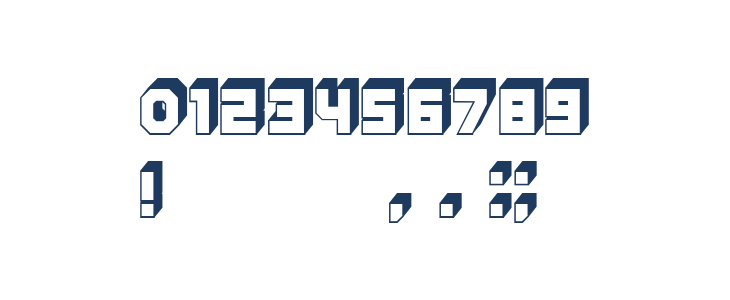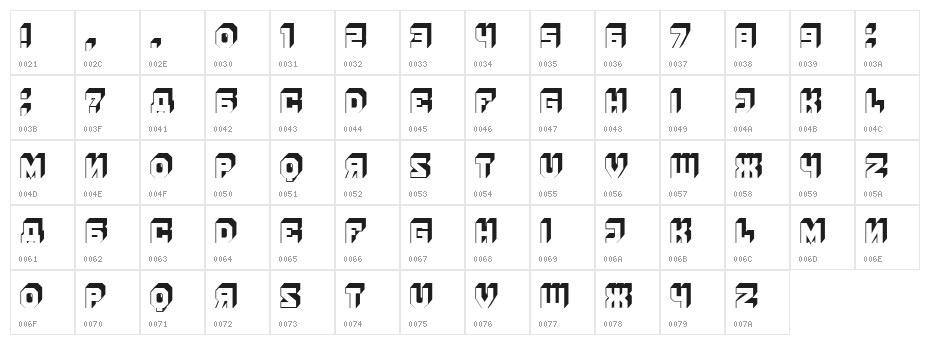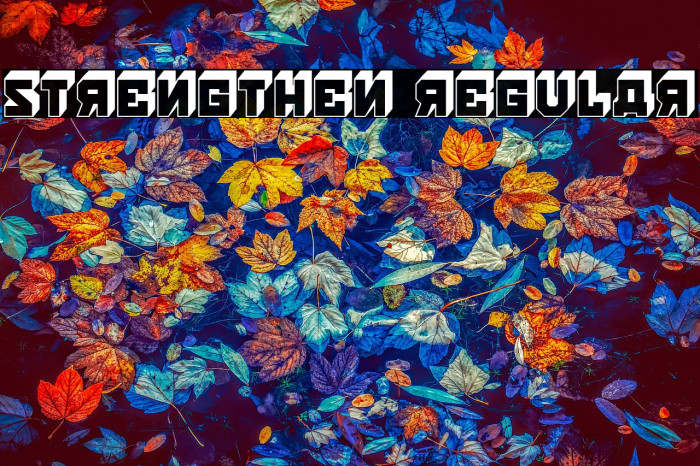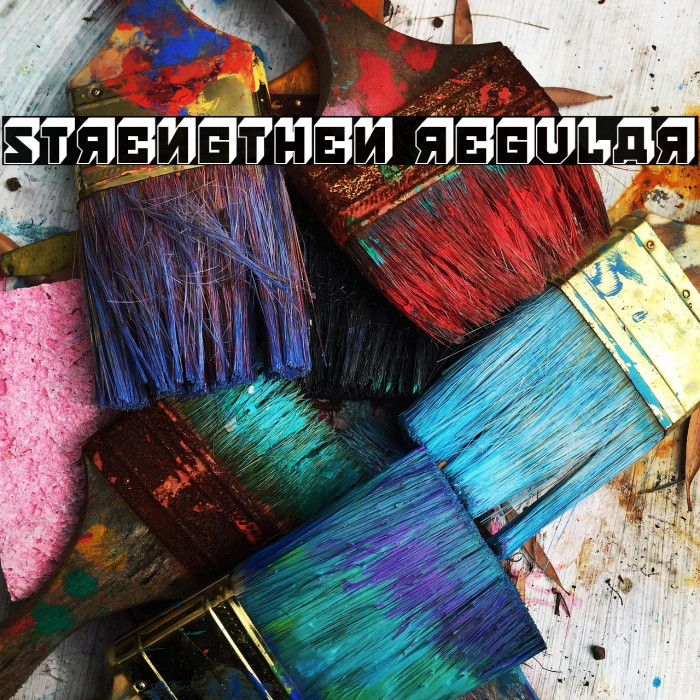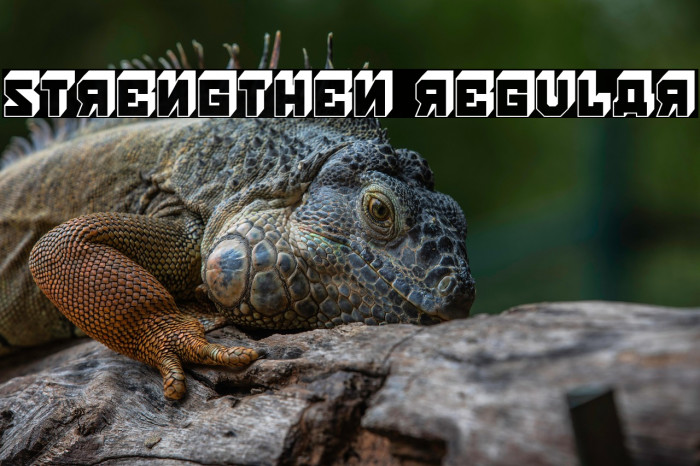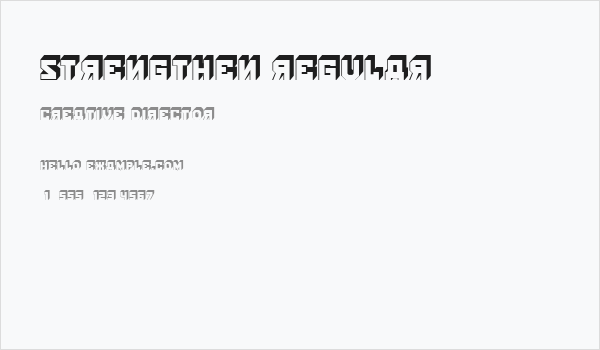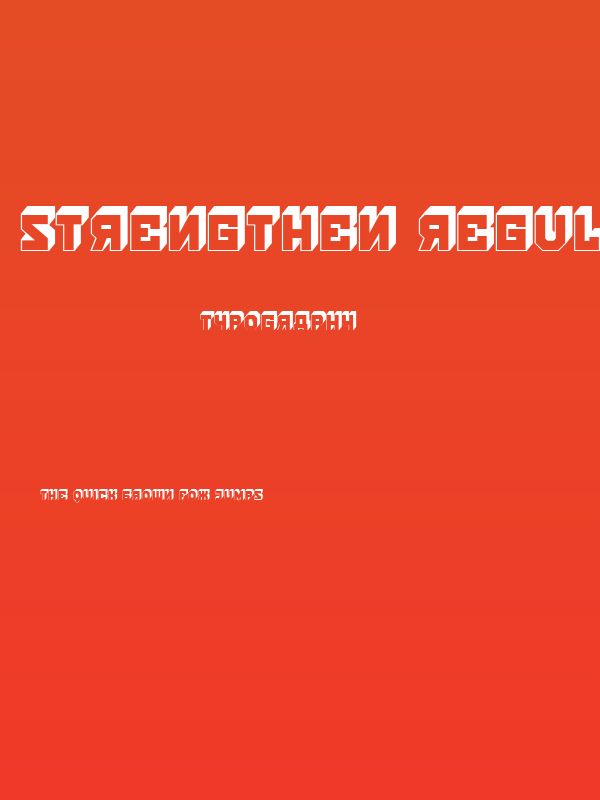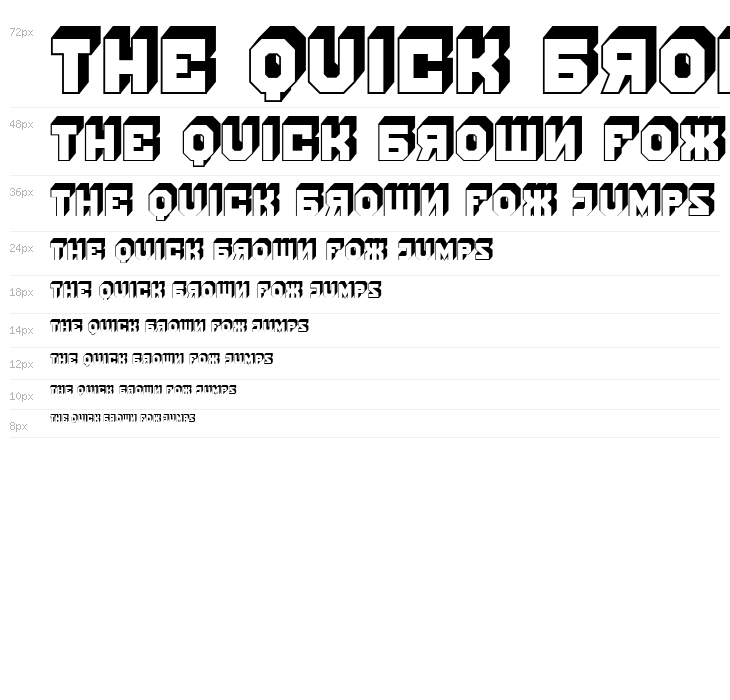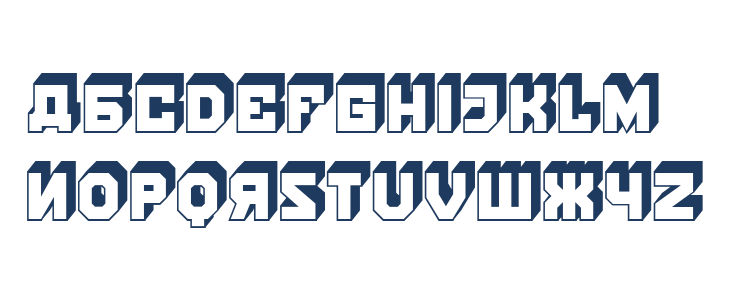
Strengthen Regular Font
Strengthen Regular Description
This font features a bold, three-dimensional appearance with a strong, impactful presence. The characters are designed with a blocky, geometric style that gives them a sense of depth and solidity. Each letter and number is outlined with a thick black border, enhancing the 3D effect and making them stand out prominently. The font is highly legible and eye-catching, making it suitable for attention-grabbing headlines or titles. The angular design and sharp edges contribute to a modern and dynamic aesthetic, perfect for projects that require a bold statement.
| Proposed Projects | Ideal for posters, headlines, logos, and any design requiring a bold, eye-catching typeface. |